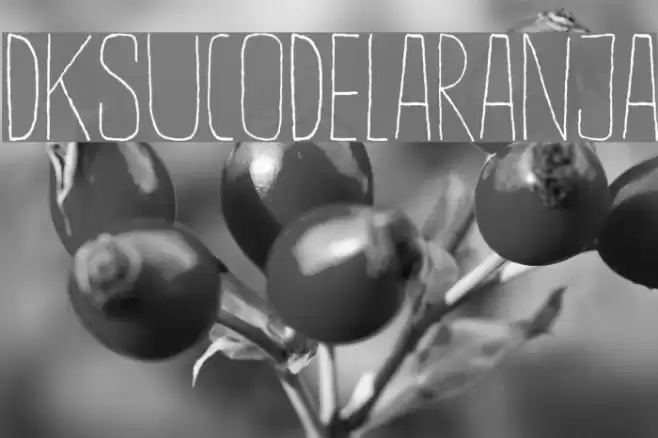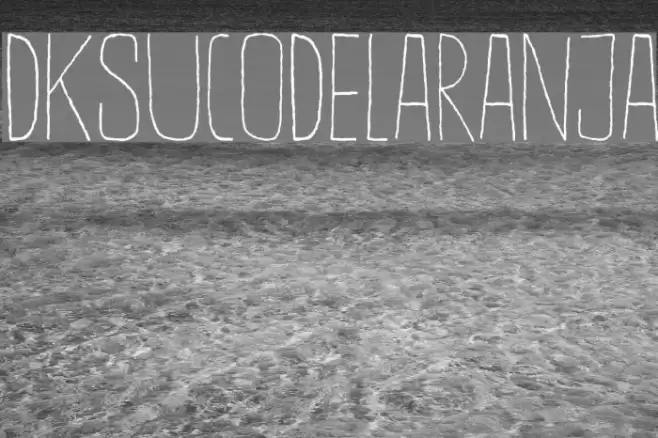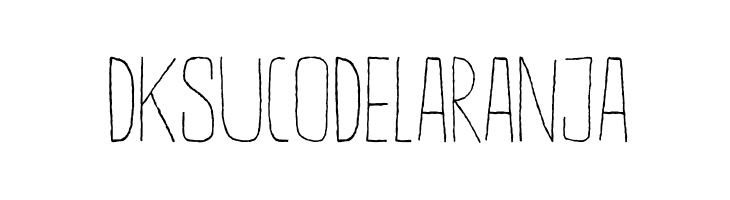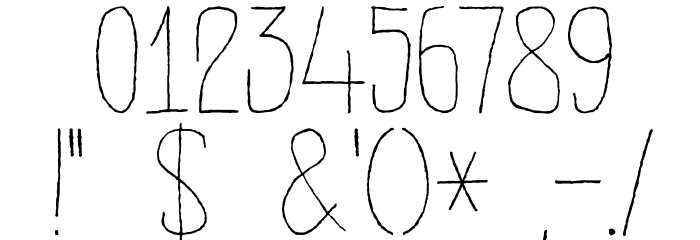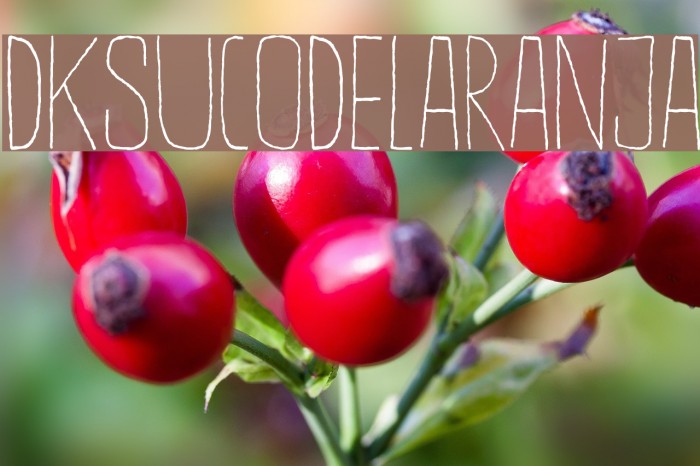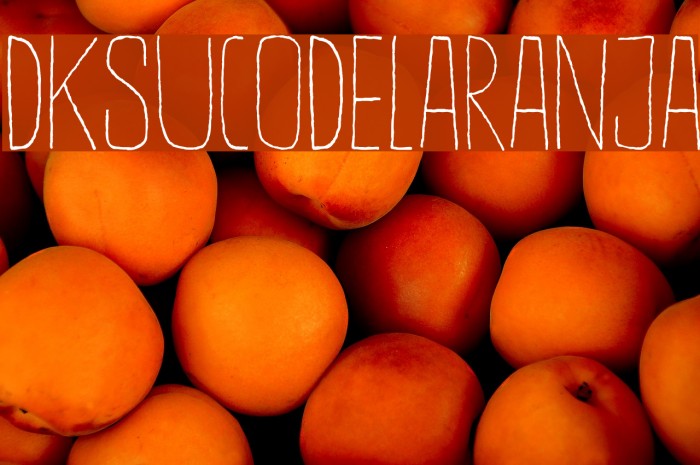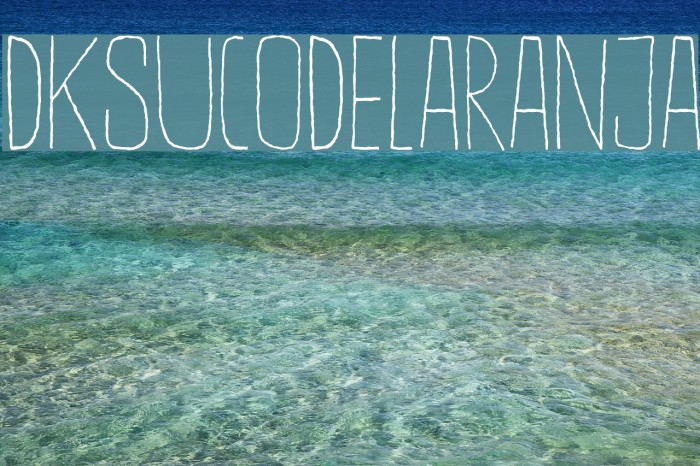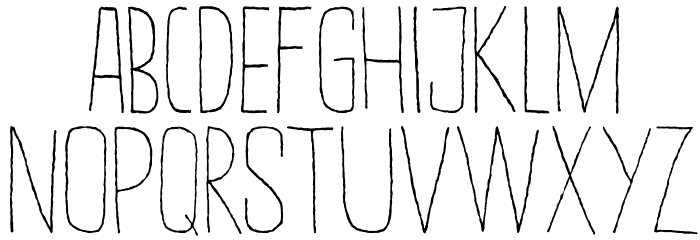
DKSucoDeLaranja Font
DKSucoDeLaranja Description
This font features a hand-drawn, organic style with tall, narrow characters. The strokes are uneven, giving it a casual and informal appearance. The uppercase and lowercase letters maintain a consistent height, creating a uniform look. The numbers and special characters follow the same aesthetic, with a playful yet legible design. This font is ideal for projects that require a personal touch or a creative, artistic vibe.
A hand-drawn, narrow font with an informal, artistic style from Uncategorized fonts.
- Proposed Projects: Ideal for greeting cards, posters, children's books, and creative branding projects.
- Overall Style: Casual, Artistic
- Use Case: Headlines, Creative projects, Informal text